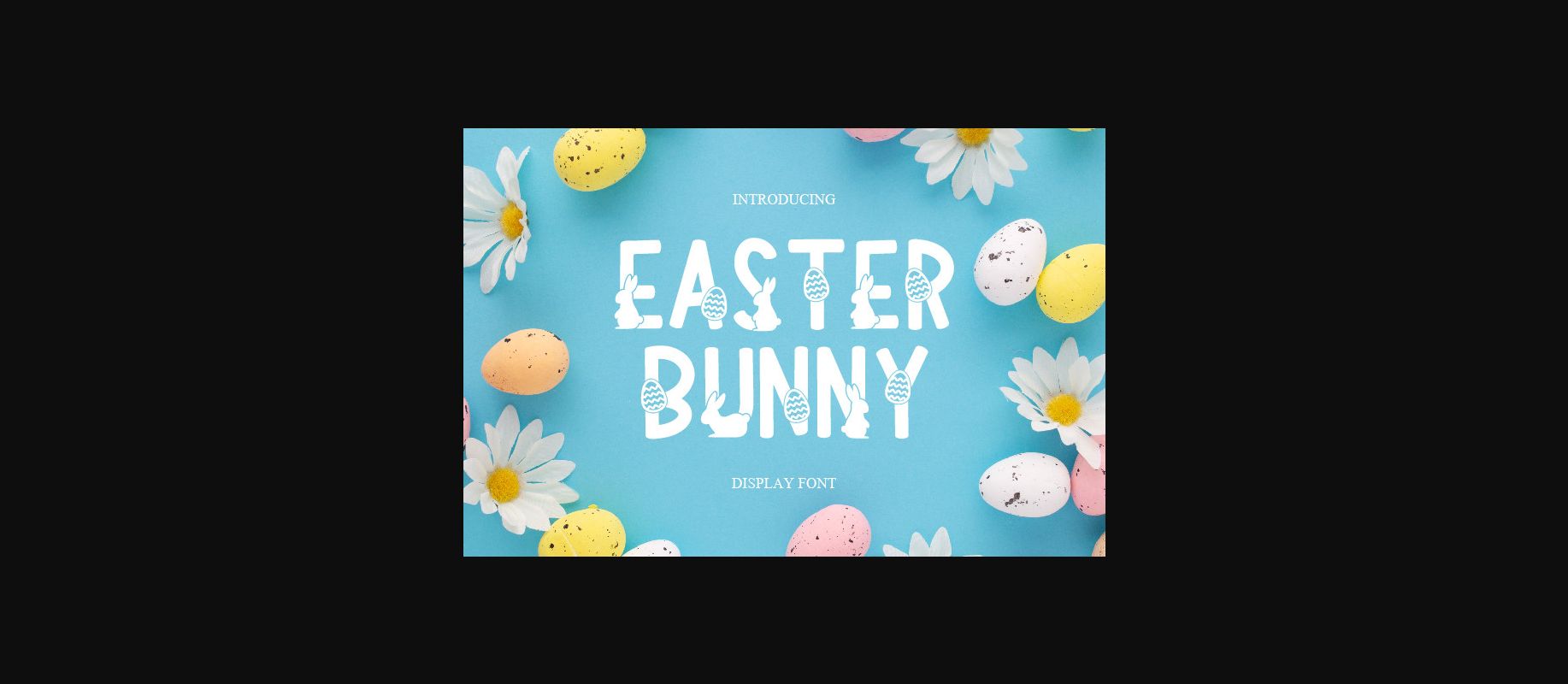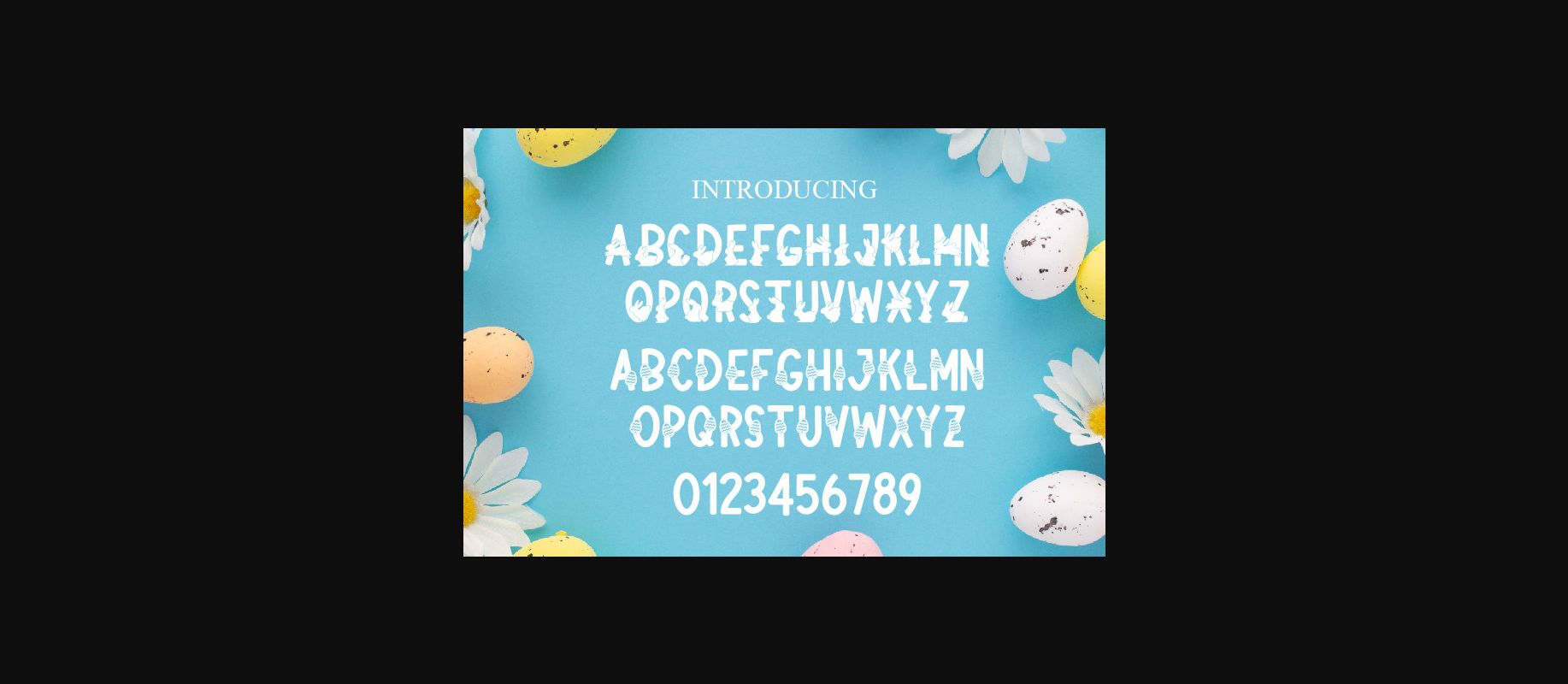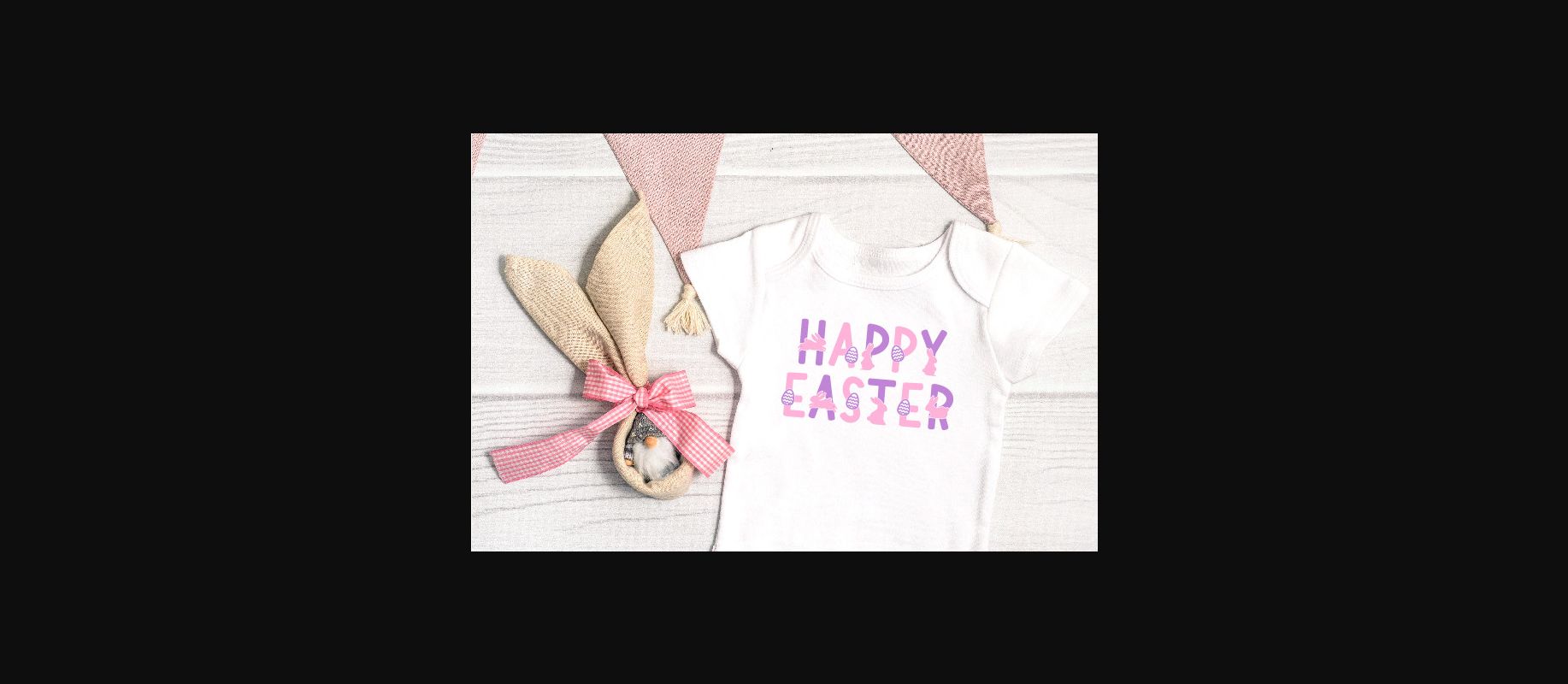
Easter Bunny Font
About Easter Bunny Font
Easter Bunny is a cute and playful decorative font. Optimized for Crafters with Cricut Design Space, Silhouette Studio, ScanNCut, and more. The bunny and Easter egg details make this font great for posters, greeting cards, Easter crafts, and more!